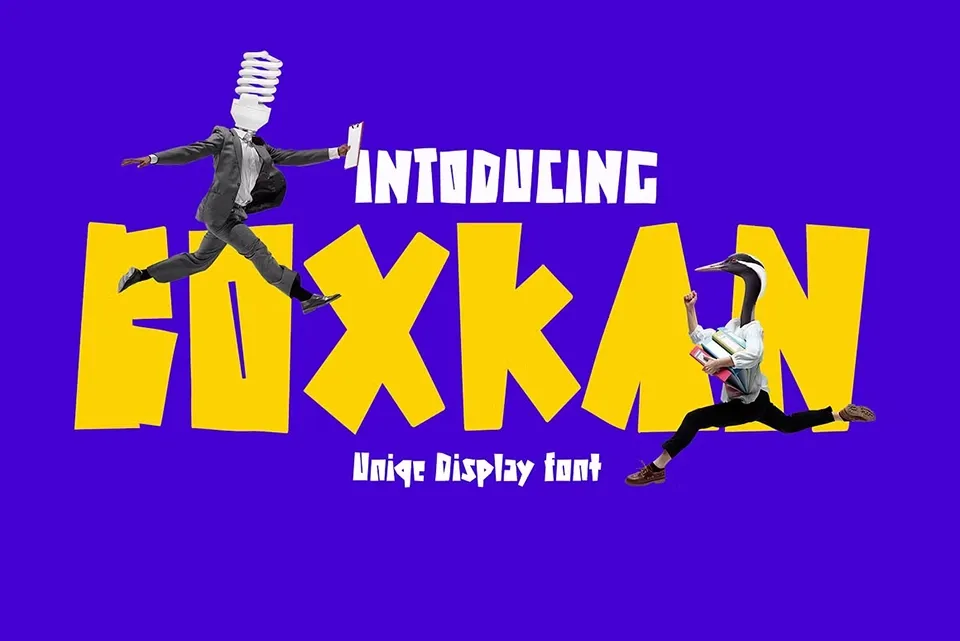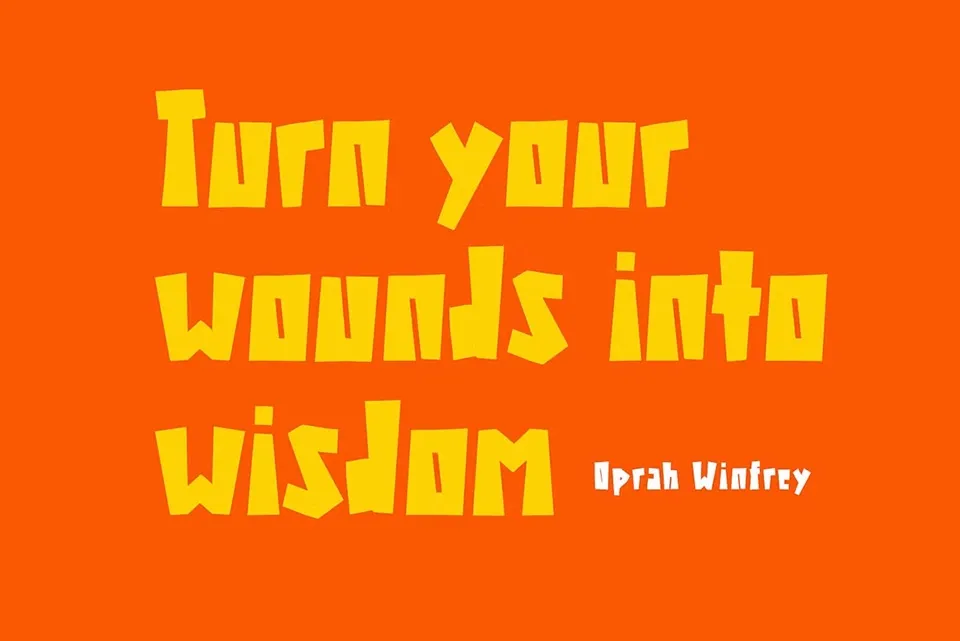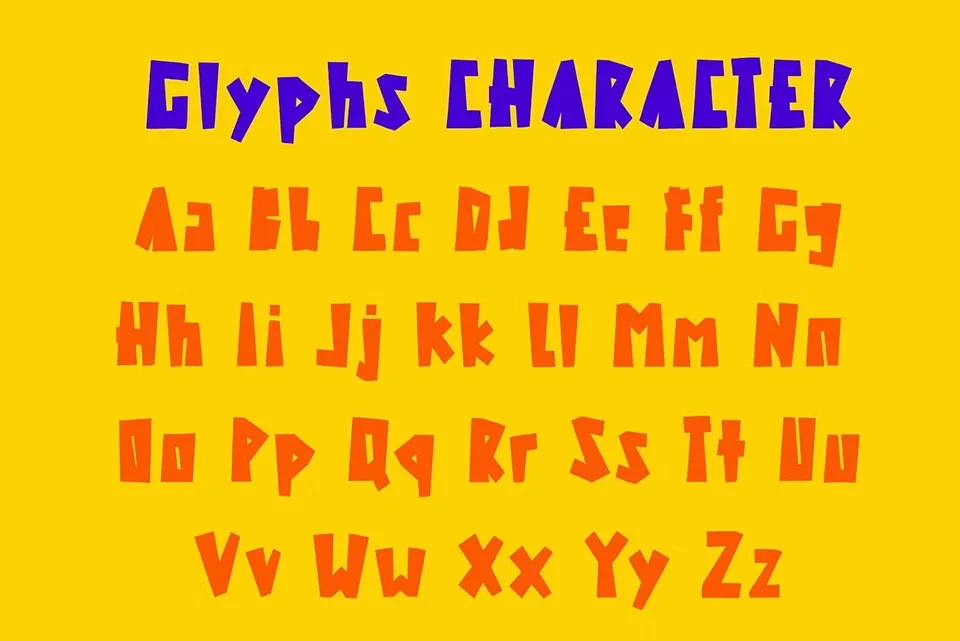
Boxkan Font
Boxkan Font is a unique display typeface characterized by its bold, blocky letterforms and playful, slightly irregular edges. This font exudes a sense of fun and is perfect for designs that aim to capture attention. Ideal for posters, headlines, and branding, Boxkan brings a distinctive and memorable aesthetic to any project. Its strong visual presence ensures that your message stands out, making it a great choice for creative projects. Boxkan combines readability with a touch of whimsy, making it versatile for a wide range of applications.